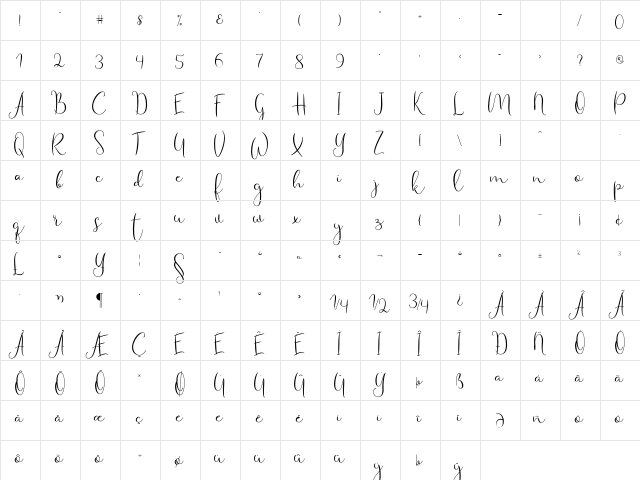
Haertbel Script Regular
| Foundry | Syahputra/Bexxtype |
| Designer | Syahputra/Bexxtype |
Design Context for Haertbel Script Typeface
Haertbel Script flows with the natural rhythm of handwritten lettering, making it ideal for designs that call for warmth and personal expression.